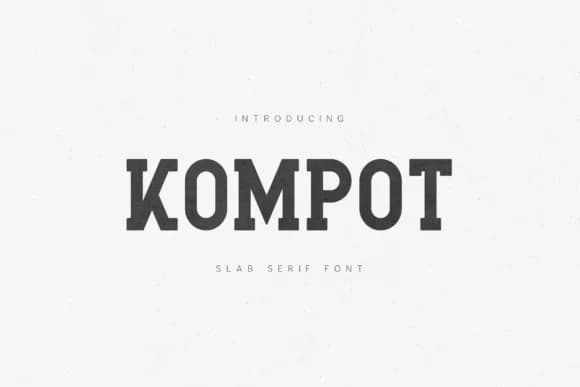
Kompot by vladfedotovv is a bold slab serif designed with genuine weight and strong character that commands attention on any project. The font's chunky, confident letterforms sit on thick slabs that create substantial visual presence while maintaining excellent readability across sizes. This balance between heft and clarity is key to why it works equally well for a single punchy headline as it does for larger display compositions. The typeface channels authentic editorial DNA from print design's best era, back when typefaces carried real personality and actual visual distinction that mattered.
It excels on vintage concert and festival posters, coffee shop menus and signage, luxury cosmetics and skincare packaging, and independent book cover design where nostalgic warmth adds genuine character without feeling stuck in the past. Magazine feature headlines and apparel graphics benefit immediately from this typeface's undeniable visual authority. The font's solid architectural structure makes it exceptionally reliable for brand identity systems that need real visual power and consistency. Whether anchoring a complete logo suite, handling all-caps display work across marketing materials, or setting body copy that refuses to whisper, it performs with conviction and presence. Get Kompot on Creative Fabrica and start building with a typeface that actually earns its boldness through intelligent, purposeful design.
- Sturdy, Confident, Slab
Kompot Font is a slab serif font that shines as a display or heading face. Pair it with a clean sans-serif or serif font for body text β the contrast creates a clear hierarchy while the two styles stay balanced and easy to read.